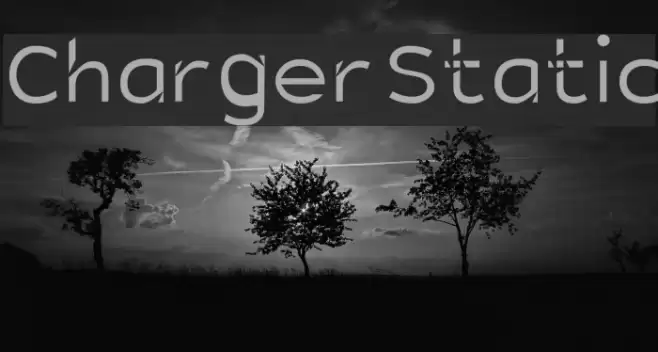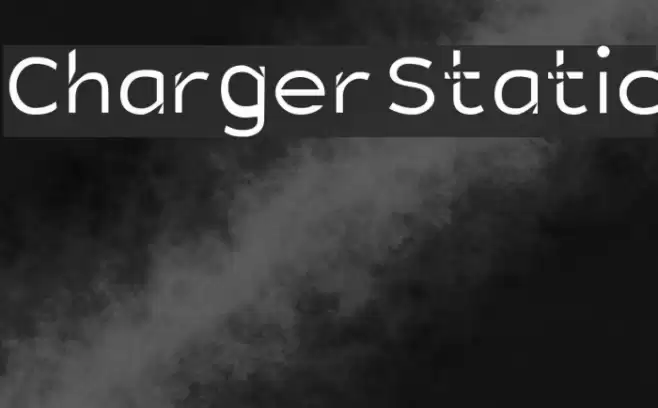
Charger Static Font
Charger Static Description
This font features a modern and futuristic design with a geometric structure. The characters are constructed with clean lines and sharp angles, giving it a dynamic and edgy appearance. The uppercase letters are bold and impactful, while the lowercase letters maintain a consistent style with slight variations in stroke width. The numerals are distinct and easy to read, complementing the overall aesthetic. Special characters are uniquely styled, adding to the font's versatility. This font is ideal for projects that require a contemporary and innovative look.
A modern, geometric font with sharp angles and clean lines from Uncategorized fonts.
- Proposed Projects: Ideal for tech branding, futuristic posters, digital interfaces, and modern advertising.
- Use Case: Headlines, Logos, Digital interfaces